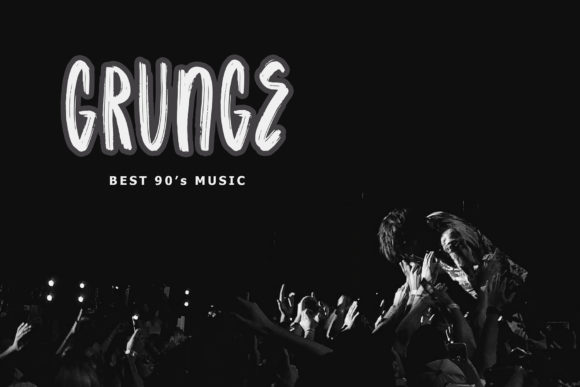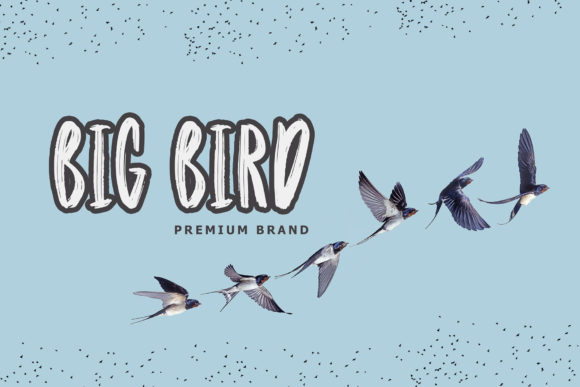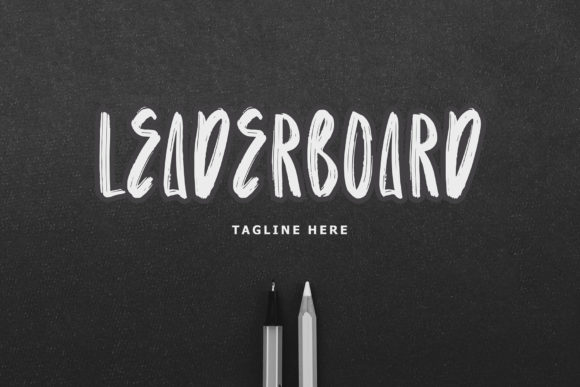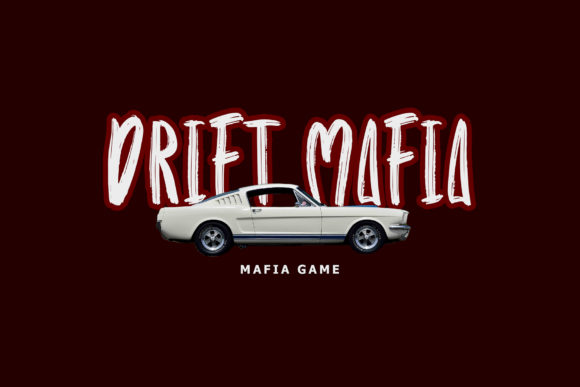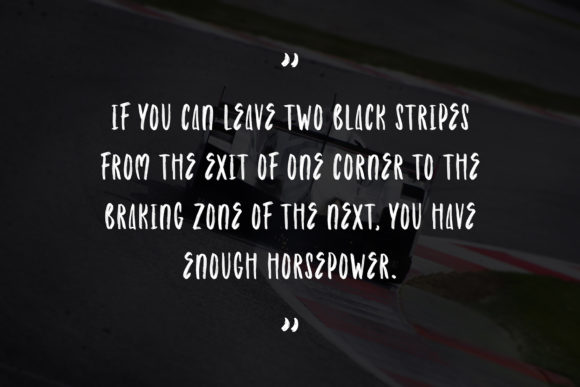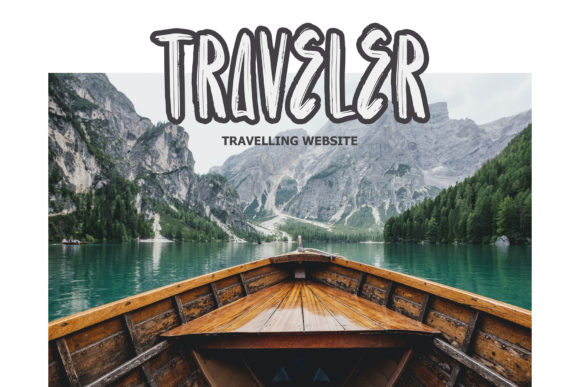
Introducing Amotir Font: A Brushed Display Font for Creative Projects
Are you a designer or crafter looking for a unique and eye-catching font to elevate your creative projects? Look no further than Amotir Font, a stunning brushed display font that’s perfect for a wide range of applications. In this article, we’ll take a closer look at Amotir Font, its features, and how you can use it to add a personal touch to your designs.
What is Amotir Font?
Amotir Font is a brushed display font that’s designed to add a touch of personality to your designs. Its original look is perfect for crafty ideas, from letterheads and titles to stationery and more. The font features a unique, hand-brushed style that’s both elegant and playful, making it ideal for a wide range of creative projects.
Key Features of Amotir Font
So, what makes Amotir Font so special? Here are just a few of its key features:
- Unique Brushed Style: Amotir Font features a distinctive brushed style that’s perfect for adding a personal touch to your designs.
- High-Quality Design: The font is designed with high-quality craftsmanship in mind, ensuring that it looks great in any context.
- Versatile: Amotir Font is perfect for a wide range of creative projects, from letterheads and titles to stationery and more.
- Easily Readable: Despite its unique style, Amotir Font is still easily readable, making it perfect for use in body text or headings.
How to Use Amotir Font in Your Designs
So, how can you use Amotir Font in your designs? Here are just a few ideas to get you started:
- Letterheads and Titles: Use Amotir Font to add a personal touch to your letterheads and titles.
- Stationery: Add a touch of elegance to your stationery with Amotir Font.
- Signage: Use Amotir Font to create eye-catching signage for your business or event.
- Branding: Incorporate Amotir Font into your branding materials, such as business cards and brochures.
Benefits of Using Amotir Font
So, why should you choose Amotir Font for your designs? Here are just a few benefits:
- Adds a Personal Touch: Amotir Font adds a unique and personal touch to your designs, setting them apart from the competition.
- Increases Engagement: The font’s unique style is sure to grab attention and increase engagement with your audience.
- Versatile: Amotir Font can be used in a wide range of creative projects, making it a great addition to your font library.
Tips for Using Amotir Font Effectively
Here are a few tips for using Amotir Font effectively in your designs:
- Use it Sparingly: Amotir Font is best used sparingly, as a headline or title font, to add emphasis and create visual interest.
- Pair it with Other Fonts: Pair Amotir Font with other fonts to create a unique and visually appealing combination.
In conclusion, Amotir Font is a stunning brushed display font that’s perfect for designers and crafters looking to add a personal touch to their creative projects. With its unique style, high-quality design, and versatility, Amotir Font is sure to become a favorite in your font library. So why wait? Download Amotir Font today and start creating stunning designs that stand out from the crowd!